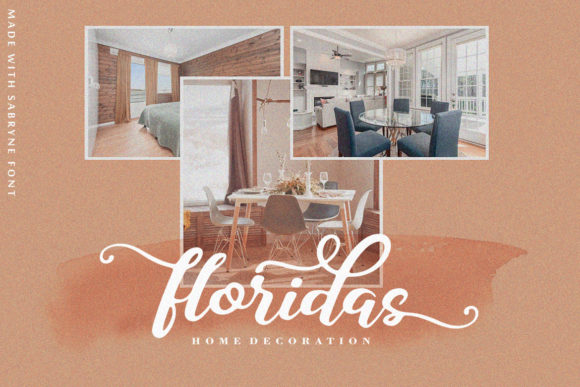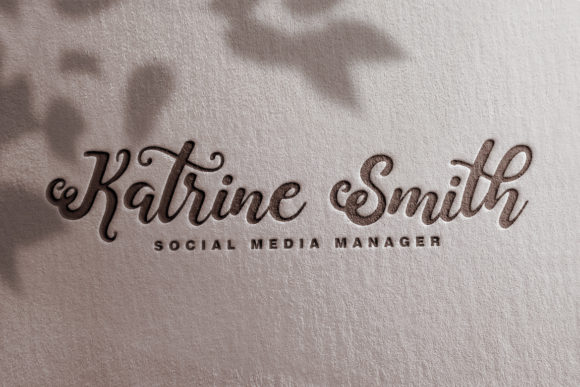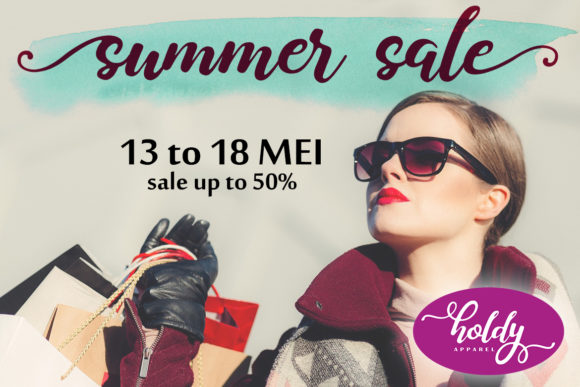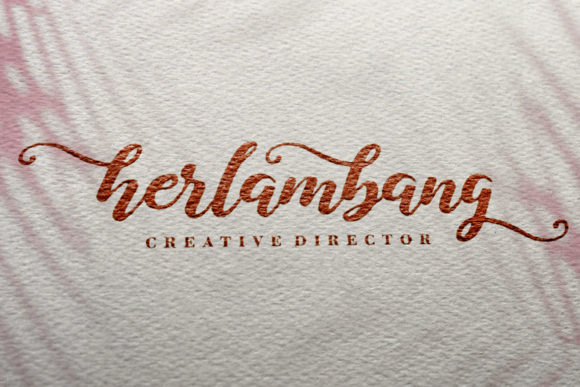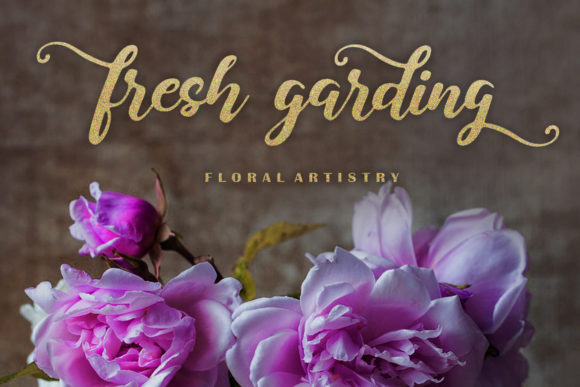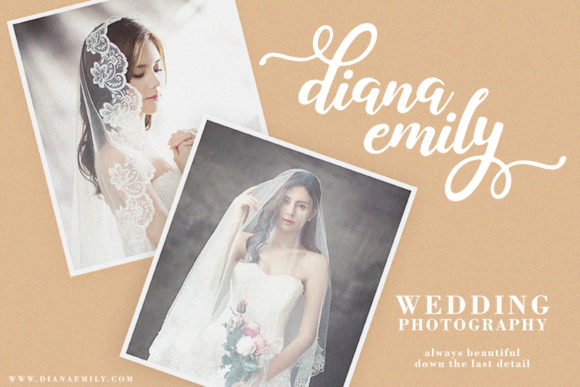
Introduction to Sabryne Font
Have you ever been stuck on a design project, searching for the perfect font to bring your vision to life? I’m sure many of us have been there, scrolling through font libraries, trying to find that one special font that adds a touch of magic to our creative project. For me, that moment came when I stumbled upon the beautiful and lovely Sabryne Font.
As a designer, I can attest to the importance of having high-quality design resources at our fingertips. And Sabryne Font definitely fits the bill. With its great readability and fun, lovely touch, it’s the perfect addition to any design. Plus, with its transparent background, it’s incredibly versatile and easy to work with. And the best part? It’s available for free download, making it an invaluable resource for designers of all levels.
Key Features of Sabryne Font
- Font size: 1,000 glyphs, with a large character set supporting multiple languages
- Unique, elegant design with a modern twist, making it perfect for various creative projects
Honest Review: Sabryne Font
I recently stumbled upon the Sabryne Font while searching for a high-quality design resource for a creative project. I must say, I was quite impressed with what I found. ✨
The Sabryne Font is a beautiful, elegant script font that’s perfect for titles, headings, and other design elements that require a touch of sophistication. It’s available for free download, making it an excellent option for designers on a budget or those who just want to experiment with a new font without committing to a purchase.
- The font has a transparent background, making it easy to place over any image or design without worrying about unwanted background noise.
- The font is highly customizable, allowing you to adjust the size, color, and spacing to fit your design needs.
One limitation of the Sabryne Font is that it may not be suitable for body text due to its script nature, which can make it difficult to read for extended periods. ⚠️ However, for titles and headings, it’s perfect.
Overall, I’m quite impressed with the Sabryne Font. It’s a high-quality design resource that’s perfect for creative projects that require a touch of elegance. I would definitely recommend it to designers looking for a free, high-quality font to add to their design arsenal.
Sabryne Font
The Sabryne Font is a high-quality design resource perfect for any creative project. With a transparent background, this font is easy to use and customize in various design software.
Tips for Getting the Most Out of Sabryne Font
To get the most out of the Sabryne Font, use it in combination with other design elements, such as graphics and images. Experiment with different font sizes, colors, and styles to create a unique design.
The Sabryne Font is perfect for various design projects, including:
- Web design and UI/UX
- Print and digital advertising
The Alex Brush Font is a high-quality, hand-drawn font that adds a touch of personality to any design project. Its transparent background and elegant lines make it perfect for creative projects that require a unique and creative look, such as branding materials, advertising campaigns, and social media graphics. Compared to Sabryne Font, the Alex Brush Font has a more playful and artistic feel, making it a great choice for designers who want to add some personality to their designs.
Yes, the Sabryne Font supports transparent backgrounds, making it ideal for use in graphic design projects that require a high level of customization. The font’s transparent background allows you to easily combine it with other design elements and backgrounds.